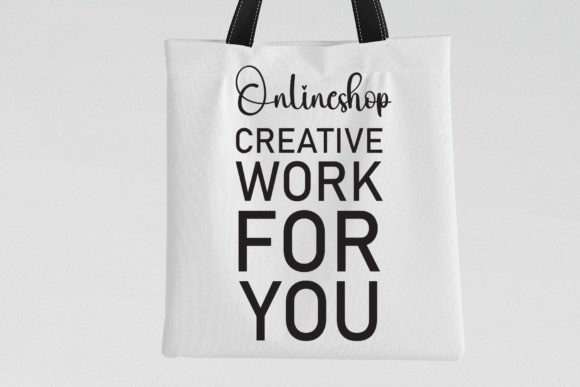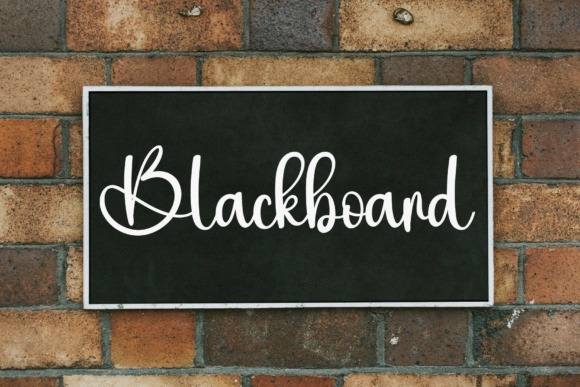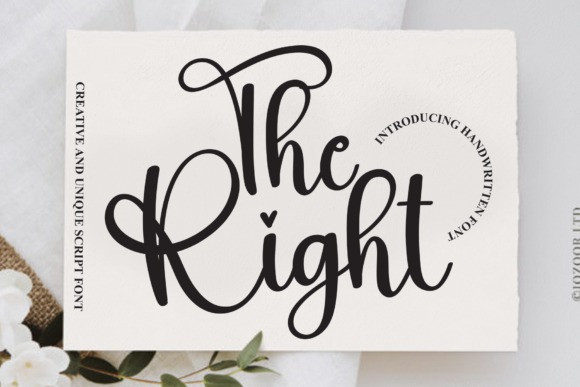
The Right Font
The Right Font is a fun and friendly handwritten font. Use it to turn any design idea into a true standout. Get inspired by its unique charm and create lovely designs.